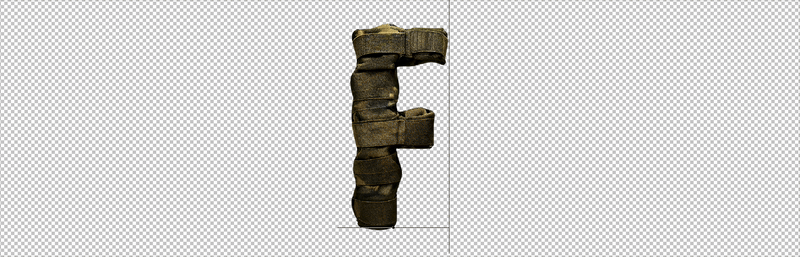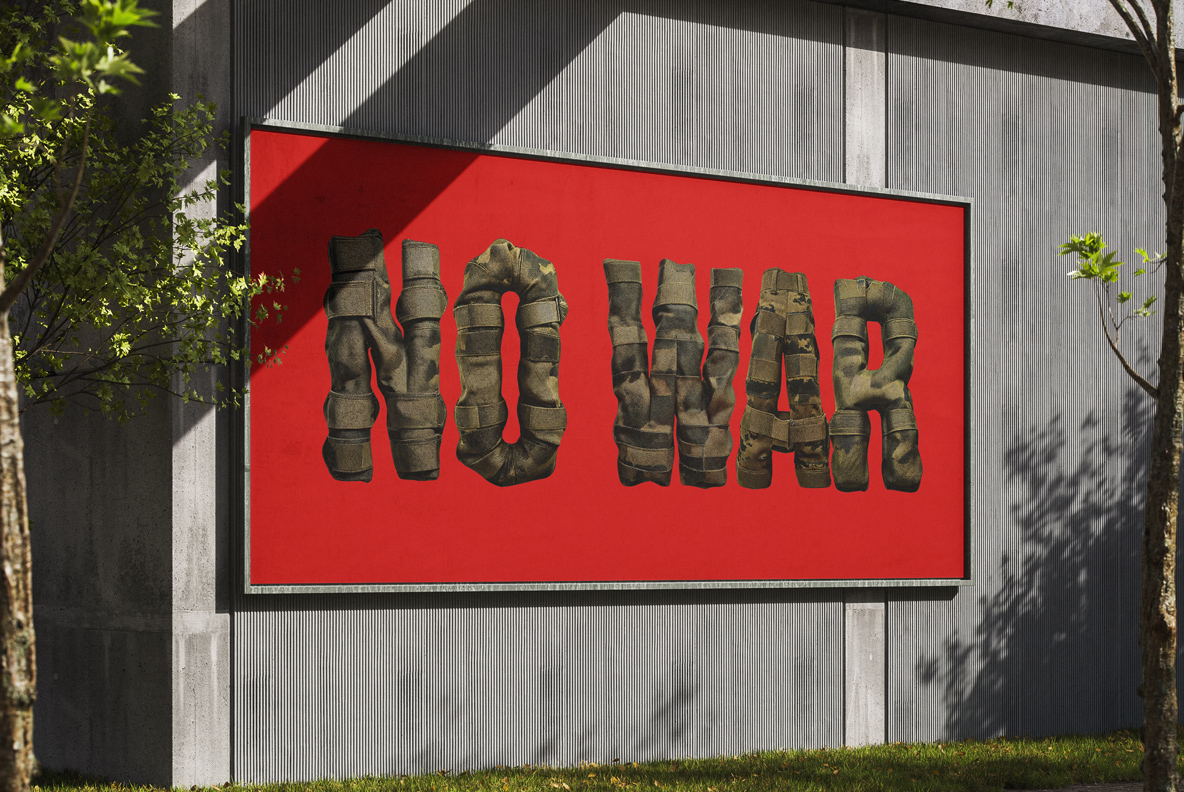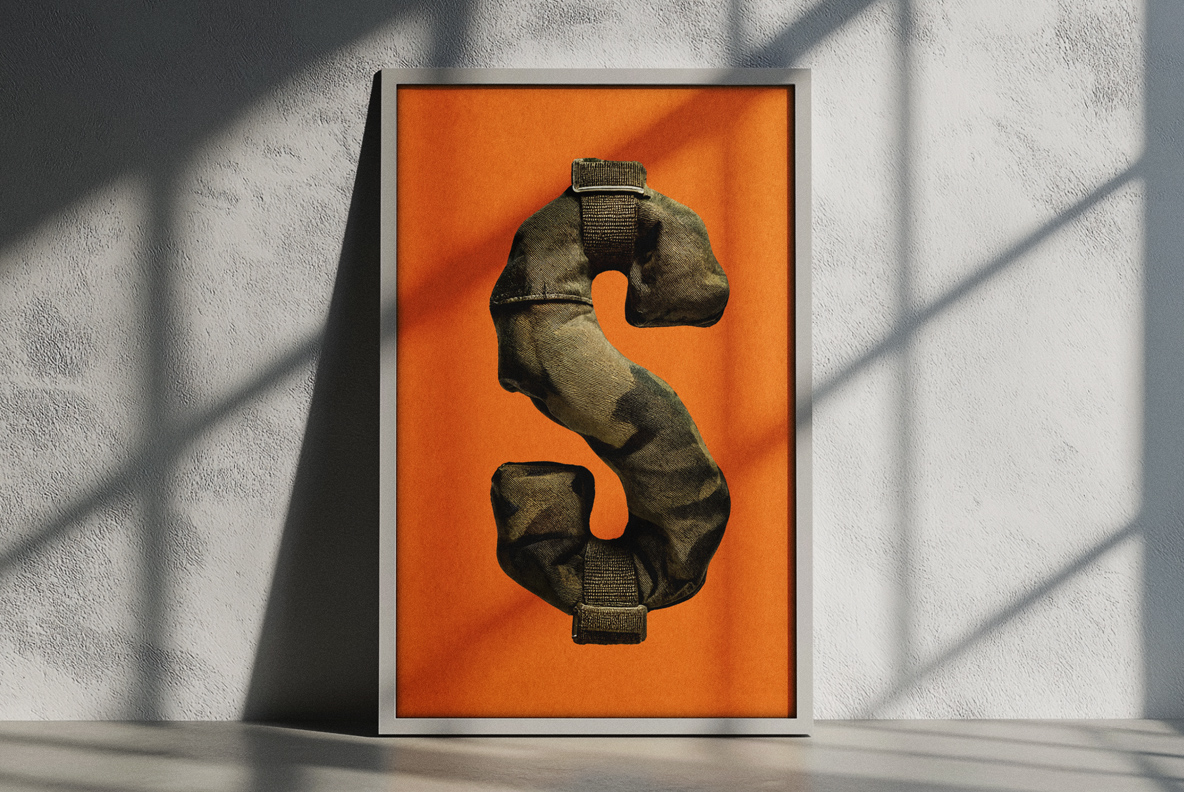
Camouflage Font. Rough. Rugged. Ready for Duty
Camouflage Font is a rugged, army-style typeface crafted from realistic camouflage fabric. Its bold, padded forms and tactical stitching bring a gritty, military vibe. Perfect for designs about war, strength, or strategy—this font doesn’t whisper, it commands attention. A visual salute to soldiers, missions, and combat-ready aesthetics.
This Font Has Done More Push-Ups Than You.
Let’s be honest — most fonts out there are a bit… soft. Serifs prance around like they’re at a Paris fashion week. Sans-serifs sit there clean and modern, sipping their oat milk lattes. But Camouflage Font? Camouflage Font eats barbed wire for breakfast and jogs 10K in combat boots before you’ve even opened your design software.
Crafted from rugged, padded military camouflage fabric, this typeface isn’t here to decorate your cozy lifestyle blog. It’s here for the trenches — design trenches, that is. Each letter is a beefed-up, battle-ready character wrapped in realistic textures that look like they’ve seen some action. Straps, folds, Velcro — every gritty detail screams mission ready. If fonts had boot camps, this one graduated top of its class, covered in mud and glory.
Alphabet made from military camouflage fabric. Army-style typography. A theme of war and soldiers
The Font That Woke Up at 0500 and Still Looks Sharp
But don’t let the tough exterior fool you — Camouflage Font has range. It’s not just for military-themed posters or first-person shooter games (though it crushes in those, obviously). No, this font can sneak into edgy fashion campaigns, survival gear branding, or even that avant-garde art zine with the intentionally unreadable layout. Think of it as the Navy SEAL of typefaces: adaptable, efficient, and intimidatingly good-looking.
Camouflage Open-Type Font description
Alphabet made from military camouflage fabric. Army-style typography. A theme of war and soldiers
This Ain’t a Font. It’s a Force
Need a headline that shouts authority? Camouflage Font doesn’t whisper; it delivers orders. Want a logo that says, “We’re not here to play nice”? This font practically growls. It’s not trying to be subtle — it’s quite literally designed to disappear in the jungle and still be the most eye-catching thing in the room. Now that’s talent.
Its visual weight and texture make it feel almost tangible, like you could reach out and adjust the straps. There’s something oddly comforting in that — a reminder that even in the chaos of war (or just a messy deadline), your font has your six.
Designers, take note: Camouflage Font is not a wallflower. It will demand attention in any layout. Pair it with stark backgrounds and minimalist design to let it dominate, or go full chaos with distressed textures, battlefield photography, and coffee stains on your mockups for the full apocalypse-now effect. There are no half-measures here.
Alphabet made from military camouflage fabric. Army-style typography. A theme of war and soldiers
Deploying in 3… 2… 1… Boom: Camouflage Font.
And the humor? Well, let’s just say Camouflage Font has a dark one. It knows war isn’t a joke — but it also knows that sometimes the only way to face the absurdity of it all is with a wry grin and perfectly kerned lettering. It’s bold, it’s ironic, and it definitely doesn’t care if Helvetica is offended.
To sum it up: Camouflage Font is not your average font. It’s a high-concept, tongue-in-cheek, war-zone-chic typographic beast wrapped in fatigue. It salutes the absurdity of design trends while kicking the door in with a very literal bang.